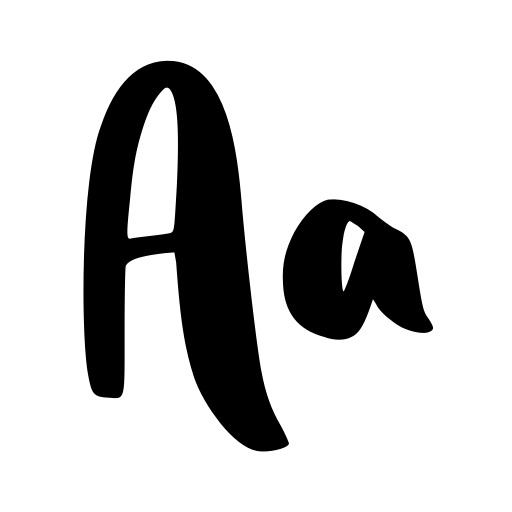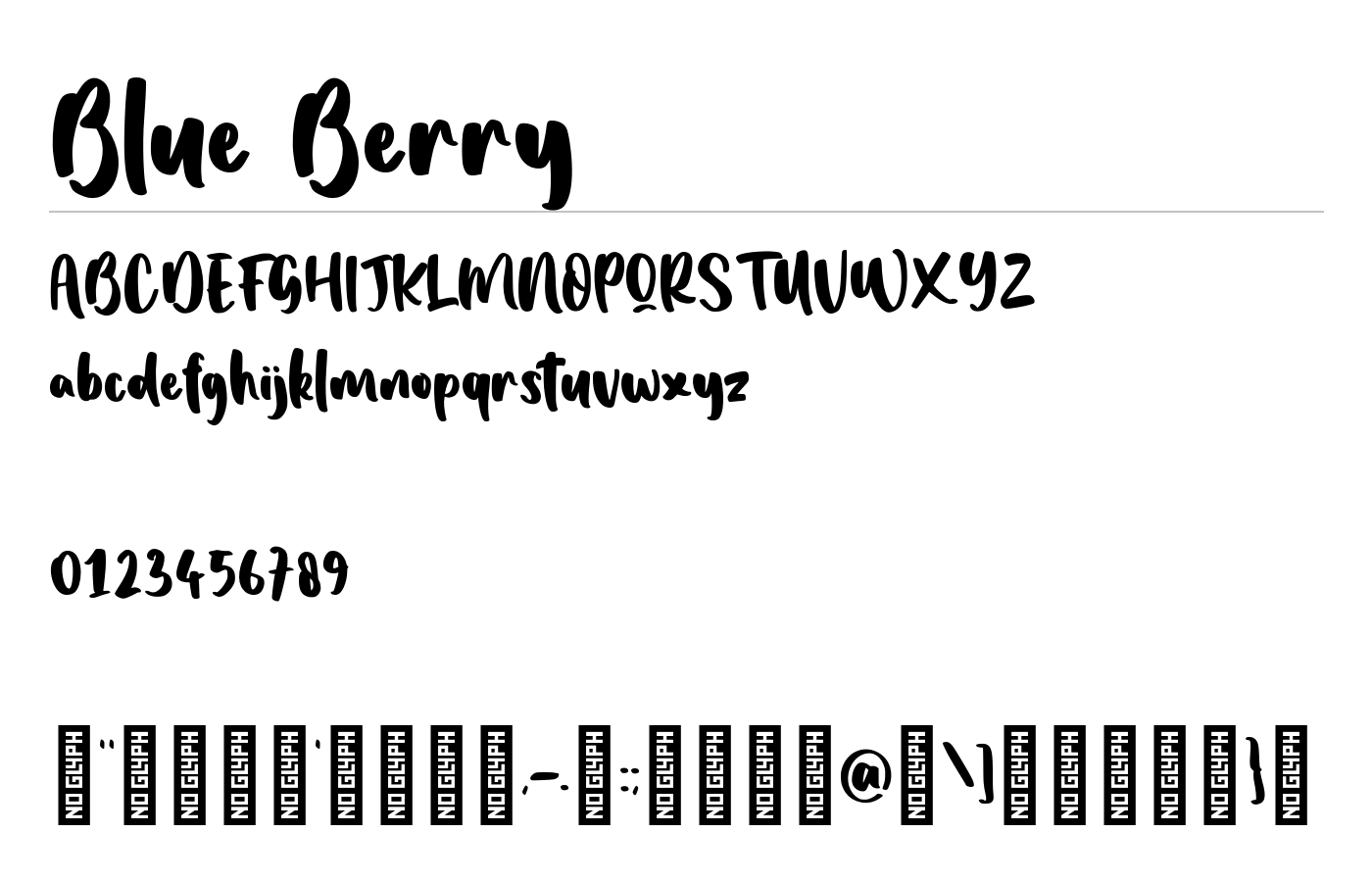
Blue Berry is a lively and bold handwritten script font with thick, rounded strokes and a playful character. Its tall x-height and casual flow make it perfect for creative projects, adding a friendly and approachable feel to logos, packaging, and headlines. This font works especially well where a fun, energetic vibe is needed to engage audiences with a personal, handcrafted touch.
Blue Berry Font
About Blue Berry Font
| Font family | Blue Berry Font |
| Designer | Intan Perkasya |